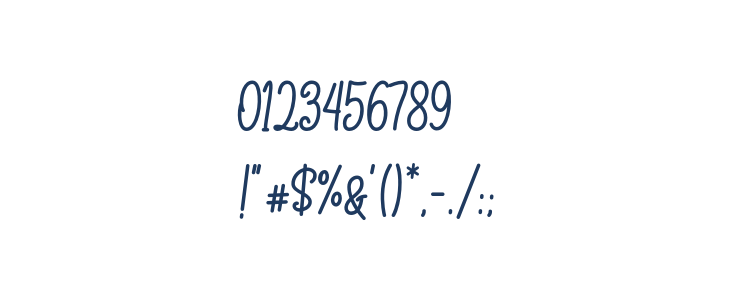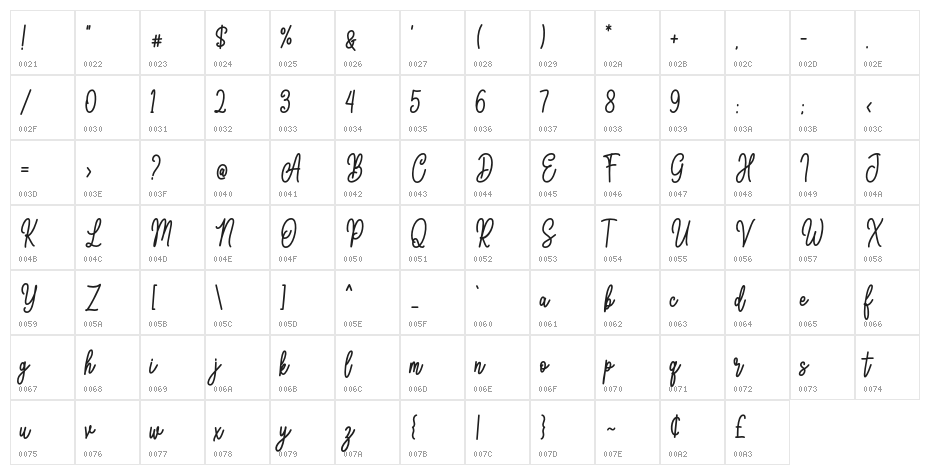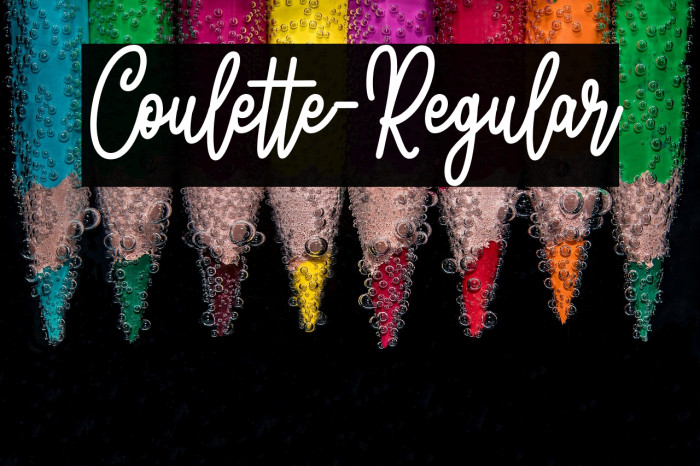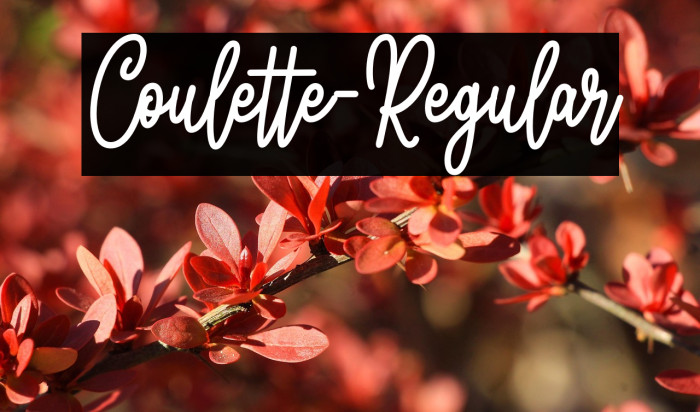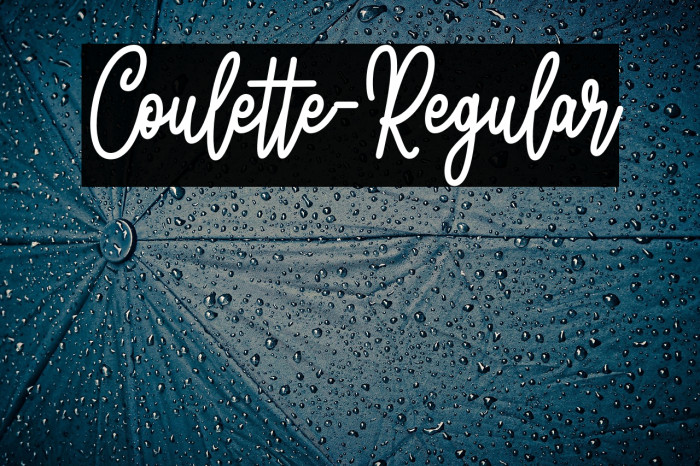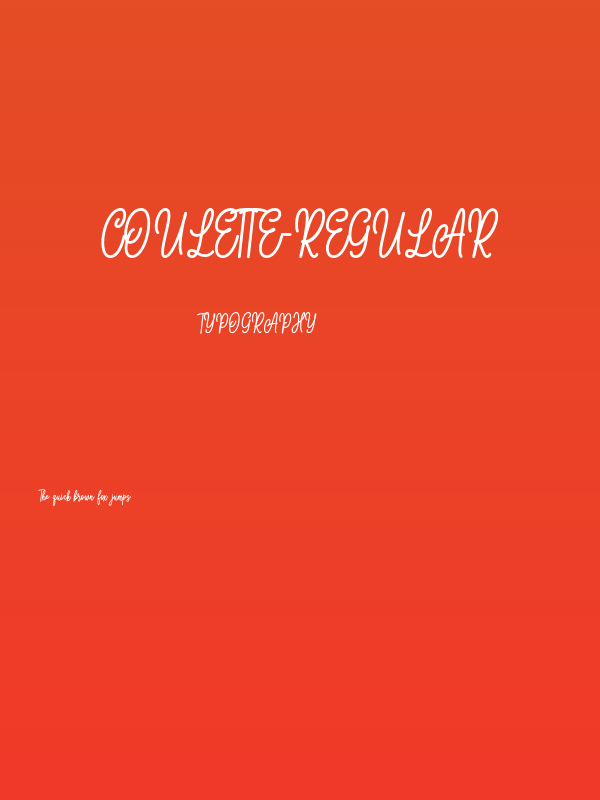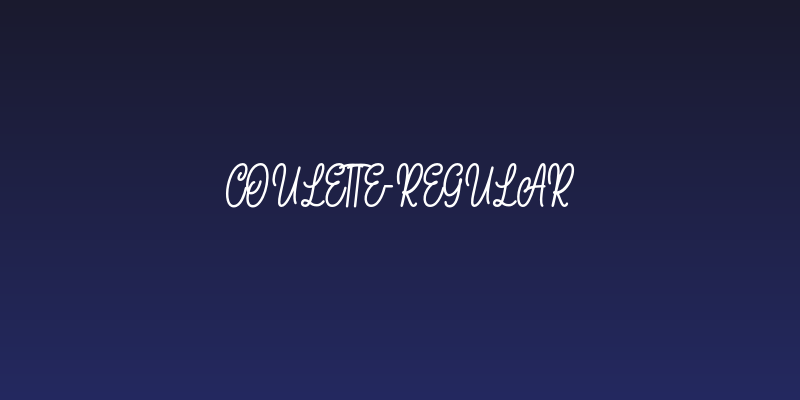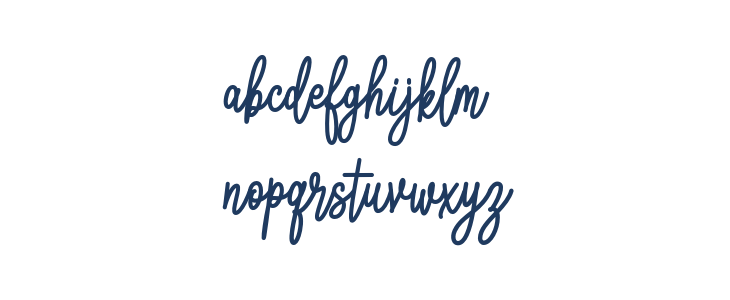
Coulette-Regular Font
Coulette-Regular Description
This font features a flowing, cursive style that exudes elegance and sophistication. The characters are interconnected, giving it a seamless and fluid appearance. The uppercase letters are bold and prominent, while the lowercase letters maintain a consistent flow with gentle curves. The numerals and special characters are designed to match the overall script style, ensuring uniformity across all text. This font is perfect for creating a personal and inviting feel, making it ideal for invitations, greeting cards, and branding projects that require a touch of elegance.
| Overall Style | Elegant, Decorative |
| Use Case | Invitations, Greeting cards, Branding |
| Proposed Projects | Ideal for wedding invitations, greeting cards, personal branding, and elegant logos. |